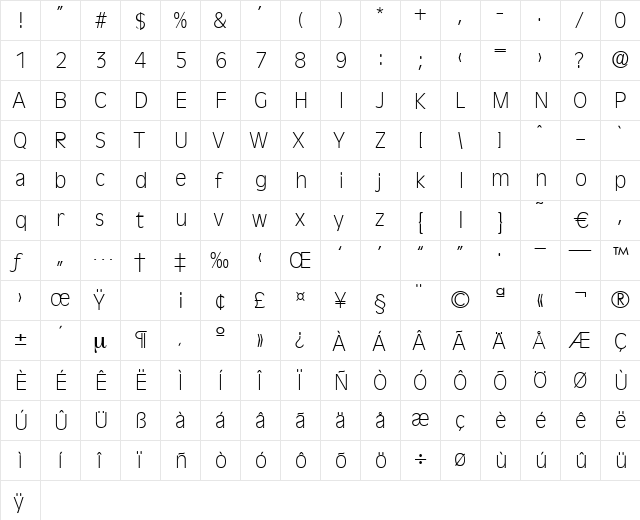
Ravenna-Xlight Regular
Design Context for Ravenna-Xlight Typeface
Ravenna-Xlight takes a measured approach to typography — its balanced proportions and neutral character make it a reliable workhorse for both digital and print work. Its slender proportions lend an understated elegance to any composition.